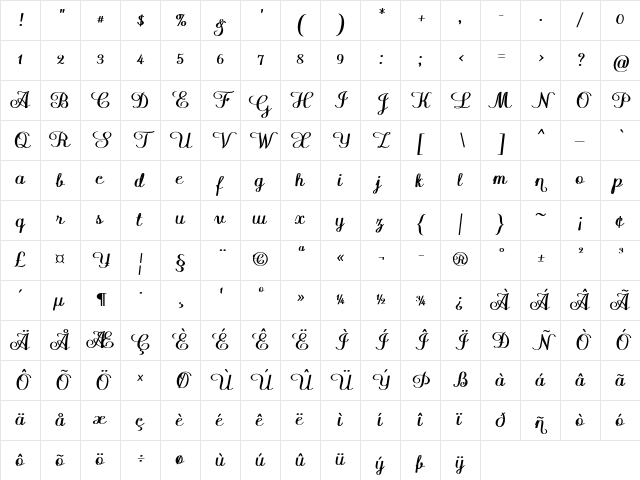
Complete Eberdine Bold glyph index. Displaying only characters natively supported by Eberdine Bold font.
Eberdine is a composed and adaptable typeface that performs quietly and consistently across a wide range of design contexts. Its bold stroke weight gives it real presence on the page.